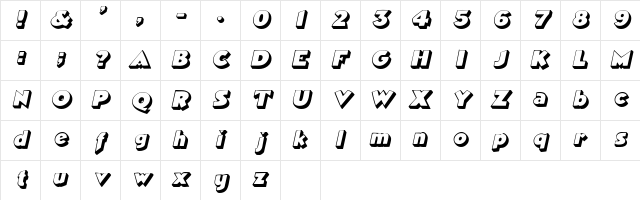
TricorneOutlineSSK BoldItalic
Design Context for TricorneOutlineSSK
TricorneOutlineSSK is built around its visual character rather than neutral utility - its distinctive forms are designed to make an impression at display sizes. The slanted form adds forward momentum and visual energy. Its bold stroke weight gives it real presence on the page.
Font Pairing: Pair with a clean neutral sans-serif for body copy to let TricorneOutlineSSK's character lead without overwhelming the composition.
Pro Tip: Use TricorneOutlineSSK exclusively at display sizes - it was designed to be seen, not read at length. Let a neutral companion handle body copy.